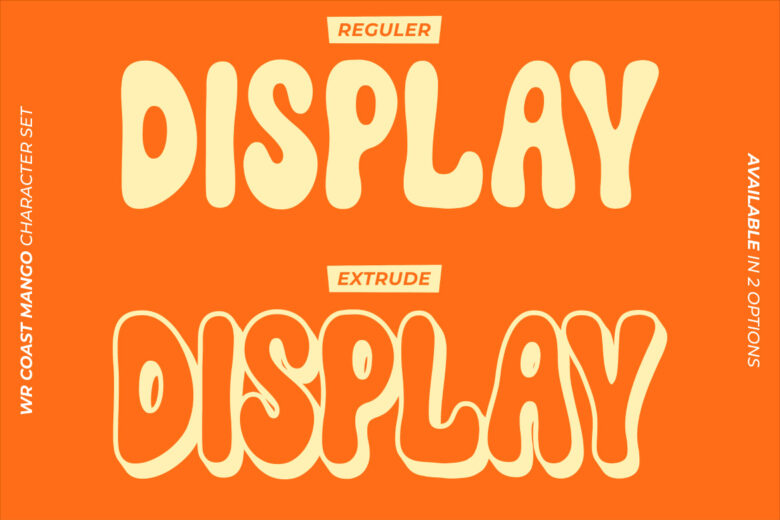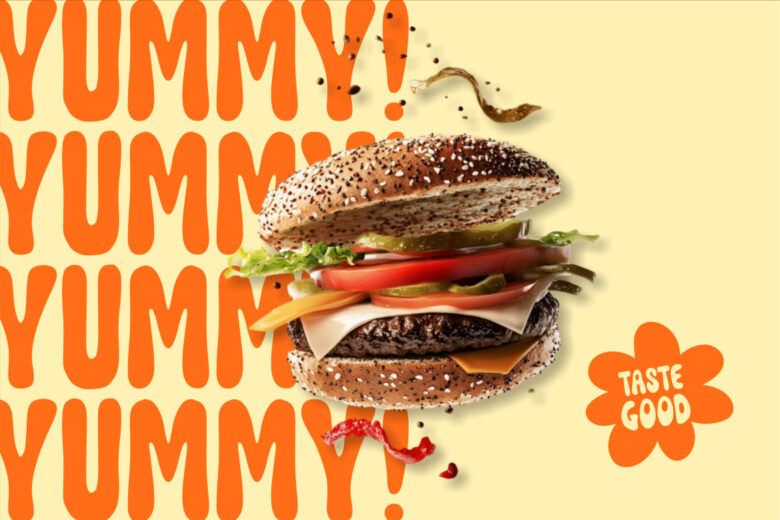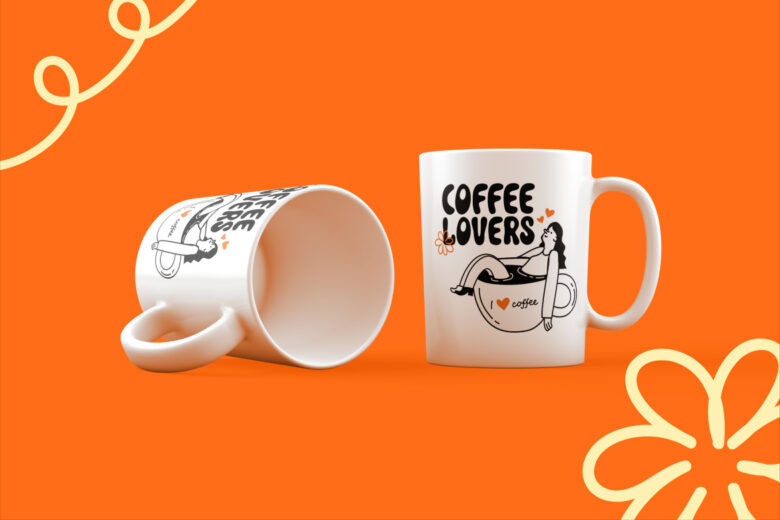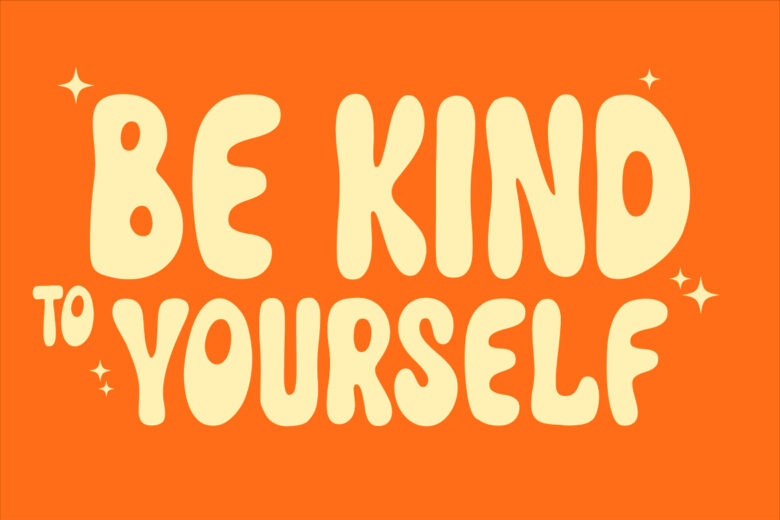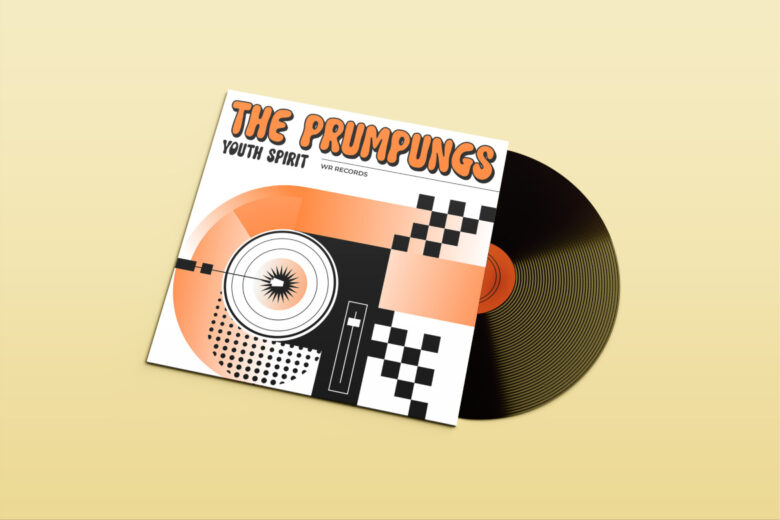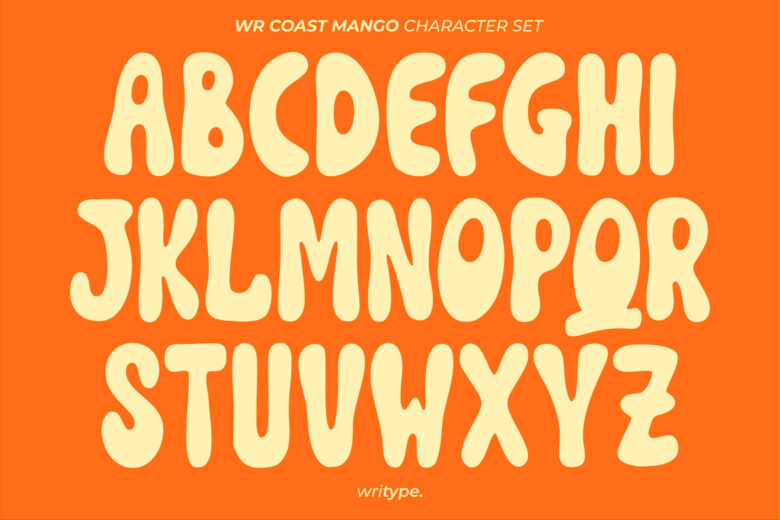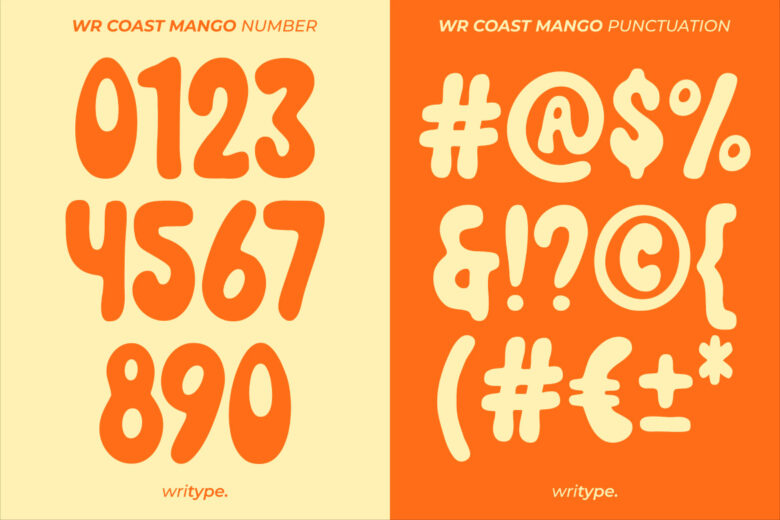
WR Coast Mango
WR Coast Mango is a slightly bold yet slim hand-drawn font with a natural and stylish feel. Perfect for posters, branding, packaging, and more, it adds a unique handcrafted touch to any design.
Available in two styles: Regular & Extrude, allowing you to create layered typography with depth and character.